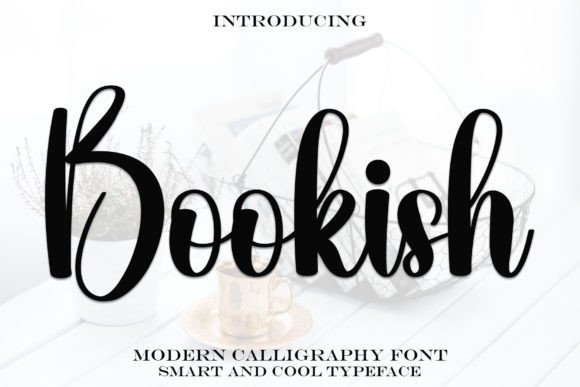
The Quest for the Perfect Font: How Bookish Stole My Heart
I’ll never forget the design project that had me on a font-finding frenzy. My client wanted a elegant, handwritten font that would make their brand stand out, but I was struggling to find the right one. That’s when I stumbled upon Bookish, a trendy handwritten font that would change the game. In this article, I’ll share my experience with Bookish, its features, and how to make the most of it in your design projects.
An Honest Review of Bookish
- ✨ Elegant and classy vibe that’s perfect for high-end designs
- ✅ Impeccable form and contemporary atmosphere
- 💫 Inspired by timeless classic calligraphy, giving it a unique touch
- 🎨 Highly versatile and can be used for various design projects, from branding to wedding invitations
While Bookish is an amazing font, there are a few things to keep in mind:
- ⚠️ Some users might find the font a bit too slender for certain design applications
- 🤔 Limited availability of stylistic alternates, which might limit creative freedom
The Backstory of Bookish
Bookish was designed with the intention of capturing the essence of timeless classic calligraphy. The designer aimed to create a font that would exude elegance and sophistication, while still being contemporary and trendy. The result is a font that’s perfect for designers, crafters, and creative hobbyists looking to add a touch of refinement to their projects.
Q: What makes Bookish unique?
A: Bookish is unique due to its impeccable form, contemporary atmosphere, and inspiration from timeless classic calligraphy.
Q: Is Bookish suitable for body text?
A: While Bookish is a beautiful font, it’s best suited for headings and titles. For body text, a more readable font might be a better choice.